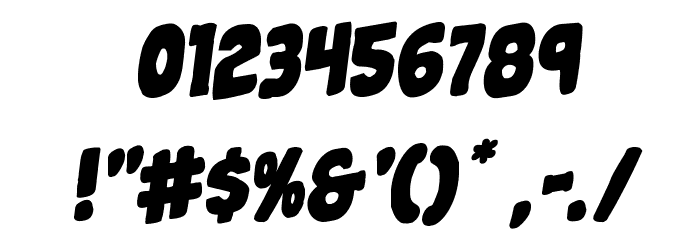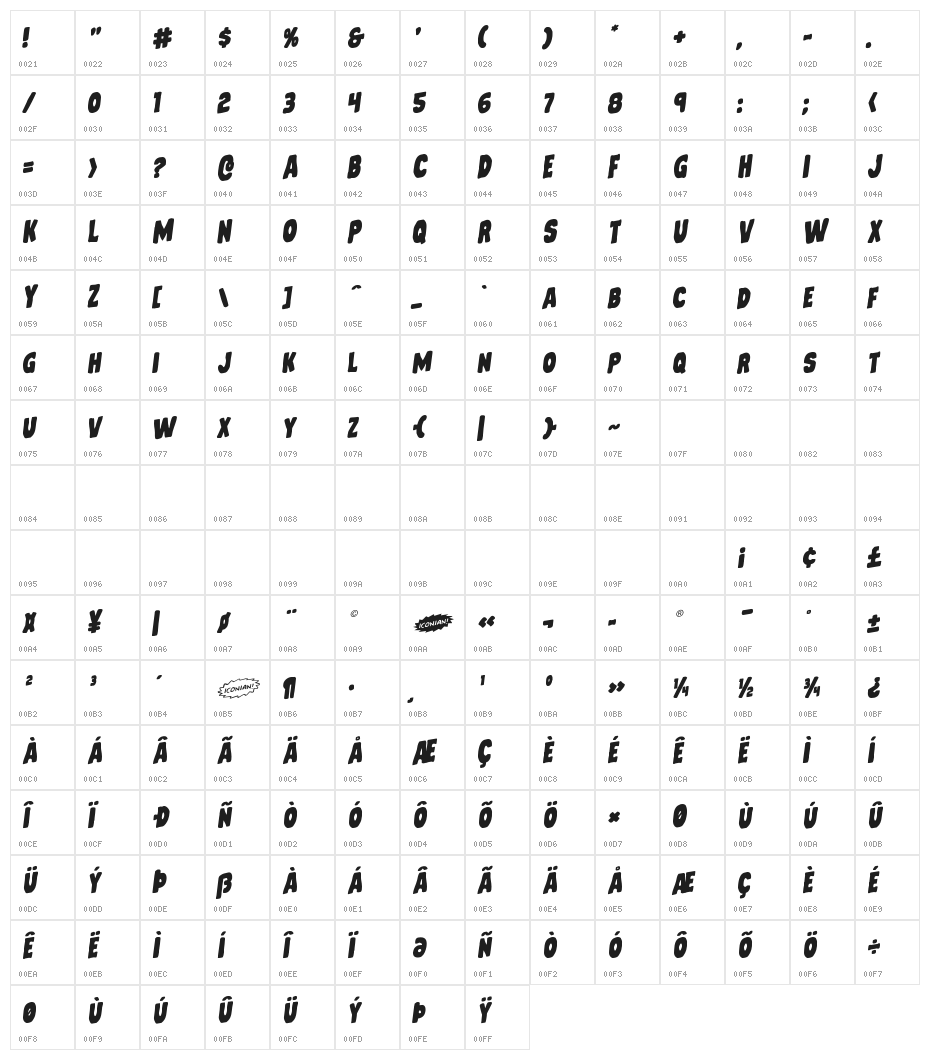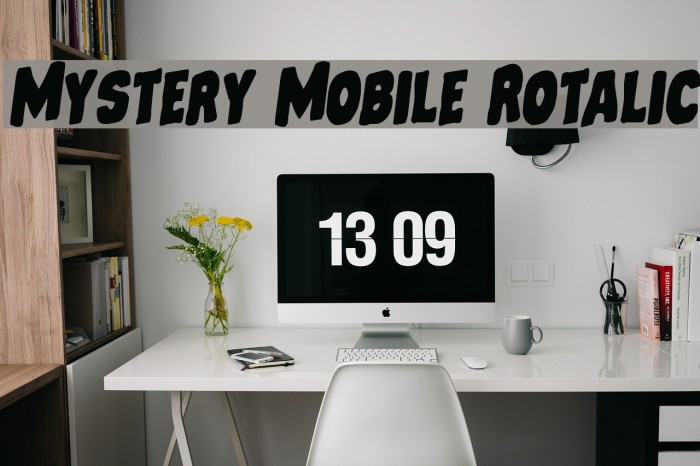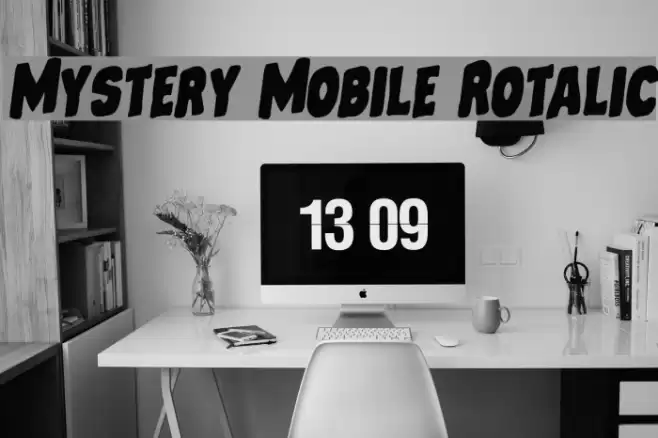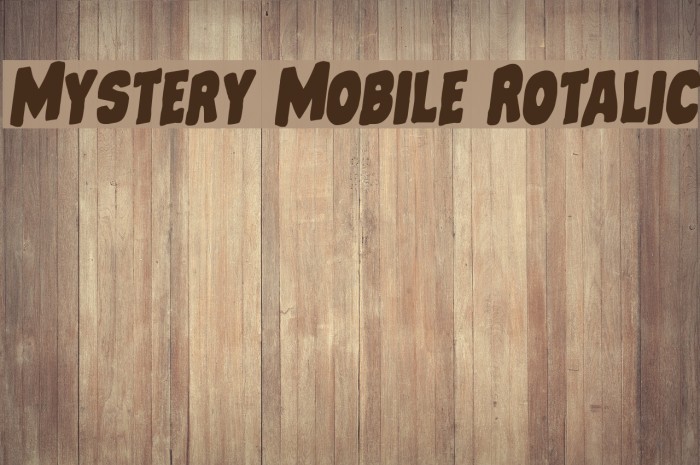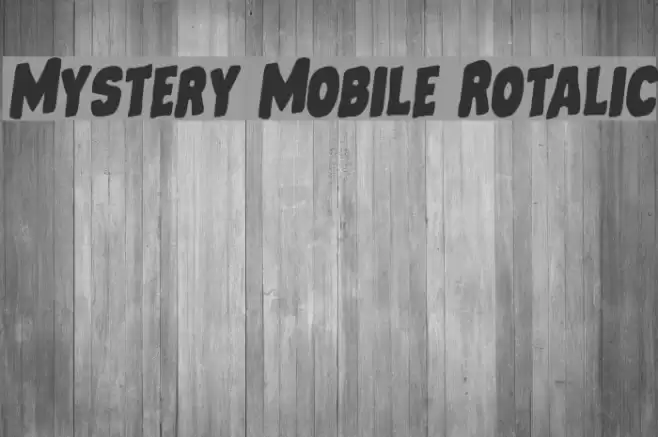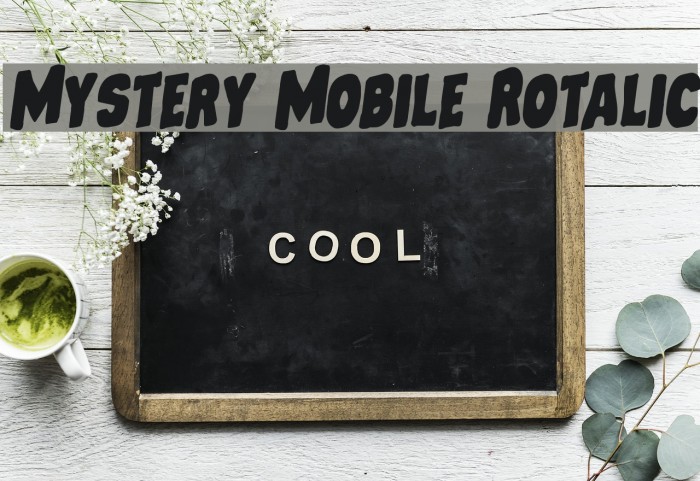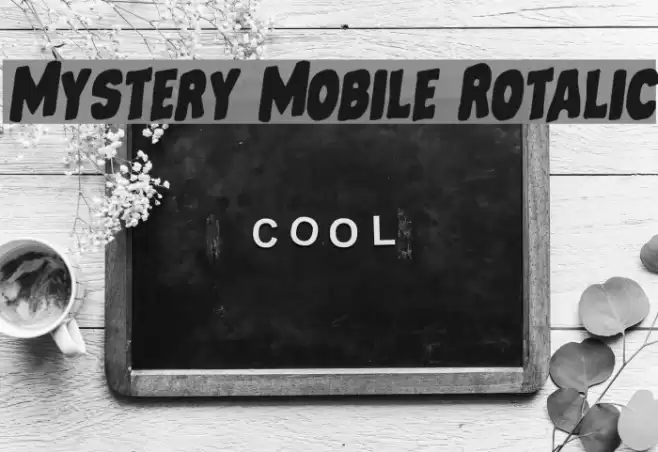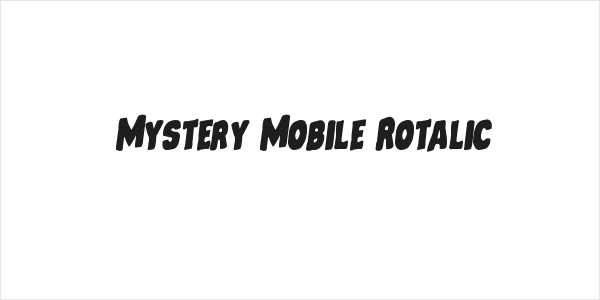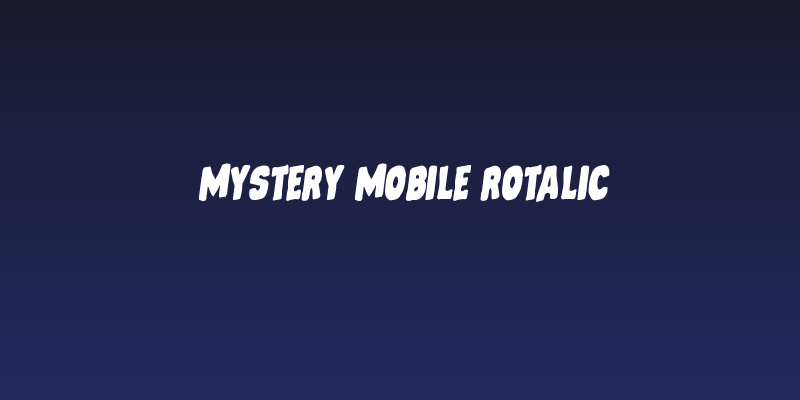
Mystery Mobile Rotalic Font
Mystery Mobile Rotalic Description
This font features a bold, dynamic style with a playful and energetic appearance. The characters are slightly slanted, giving it a sense of motion and fluidity. The strokes are thick and rounded, contributing to a friendly and approachable look. The uppercase and lowercase letters maintain a consistent weight, ensuring readability while adding a touch of whimsy. The numbers and special characters follow the same design principles, making them cohesive with the overall aesthetic. This font is ideal for projects that require a lively and informal touch.